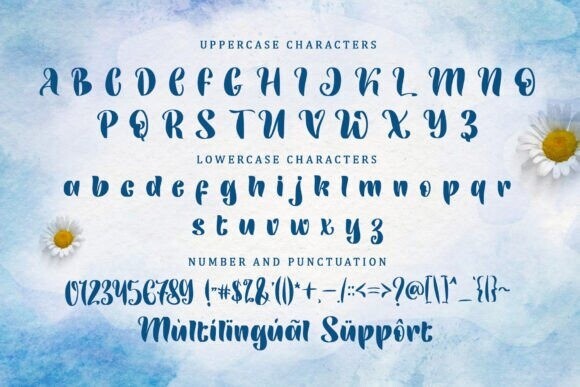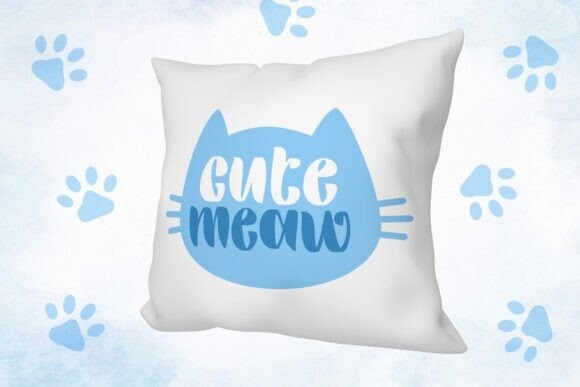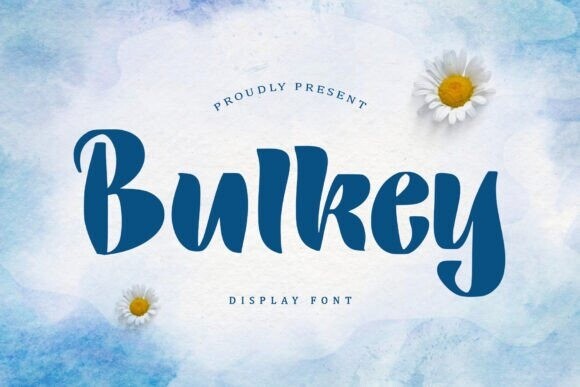
Bulkey Font
Designer: Sakha Design
Bulkey Font, a font elegantly inspired by the authentic strokes of the handwritten word. Its gentle curves and refined lines make it an idyllic fit for intimate projects such as greeting cards, wedding invitations or personal branding. The distinctive charm of this handwritten font lends genuine uniqueness to your designs, ensuring your creations leave an indelible mark. With Bulkey, authenticity meets innovation at the intersection of design, making your artwork nothing short of unforgettable.